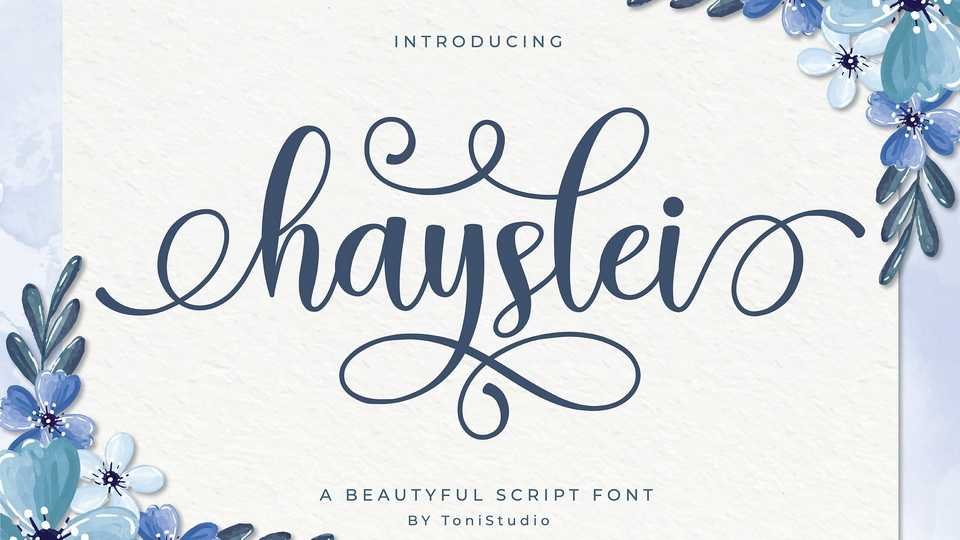
Download Hayslei font, a modern calligraphy typeface that feels equally charming and elegant. Hayslei looks stunning on wedding invitations, quotes, greeting cards, logos, business cards and every other design which needs a handwritten touch.
Designer: ToniStudio